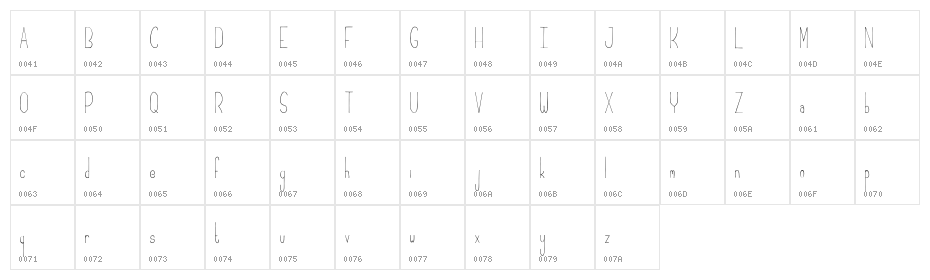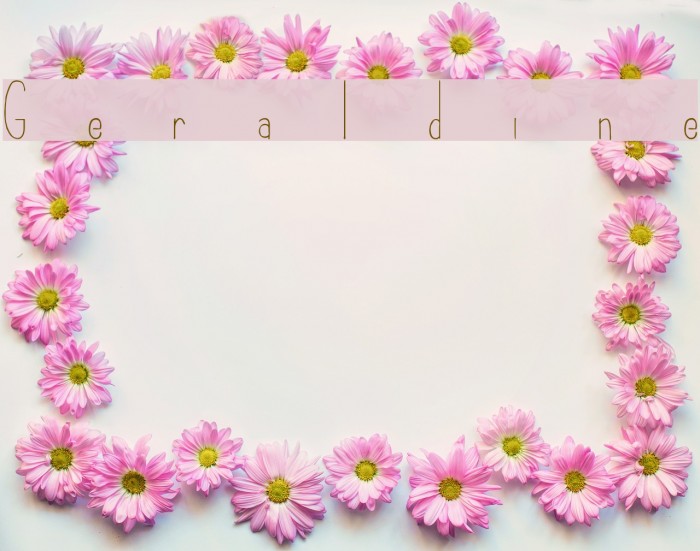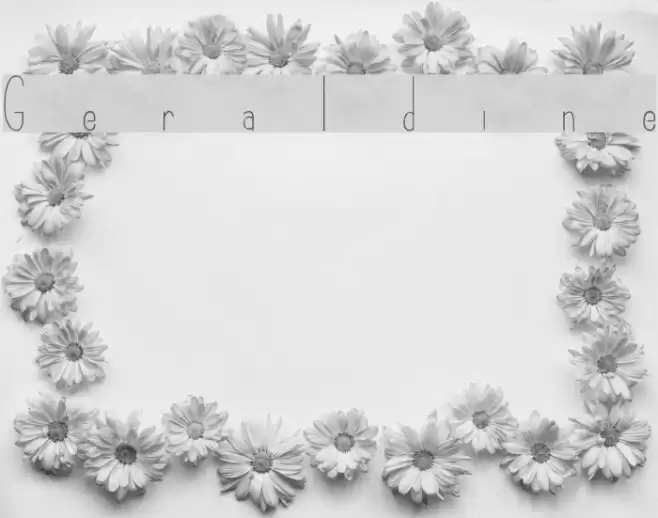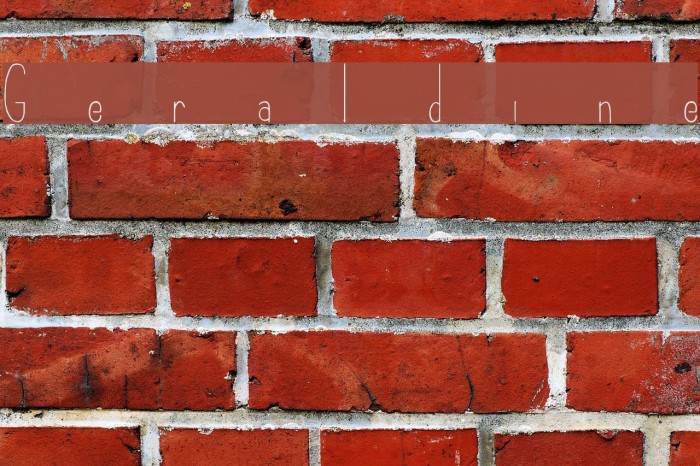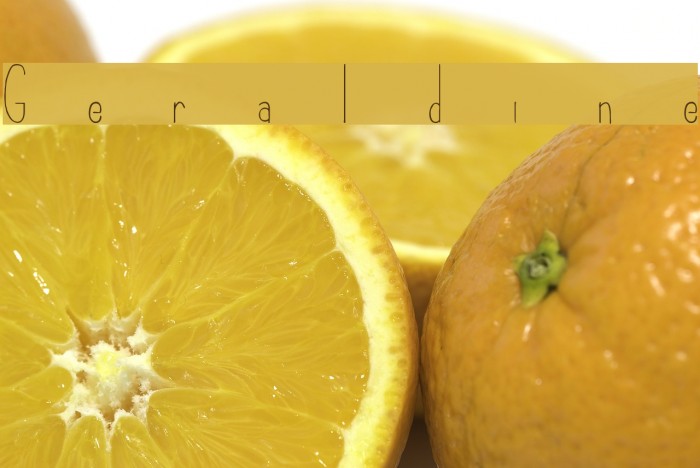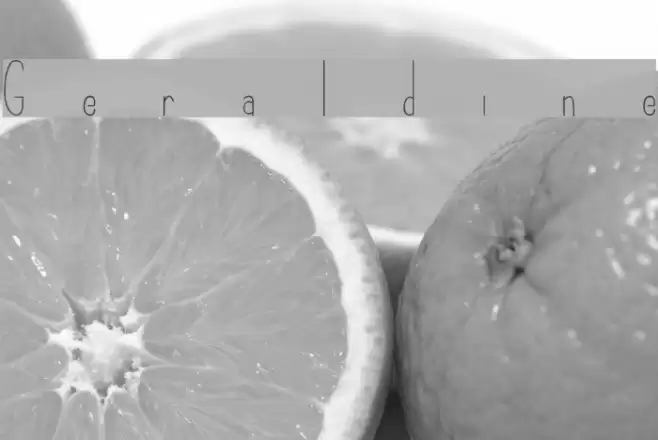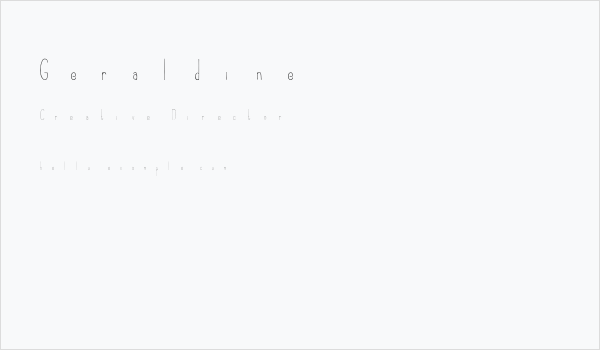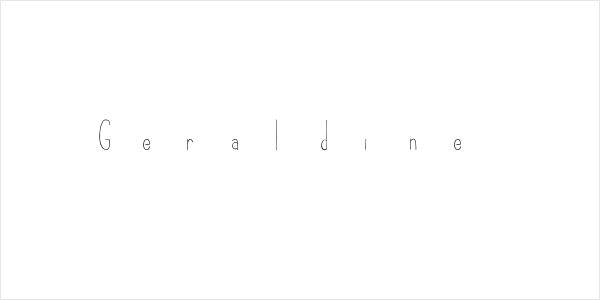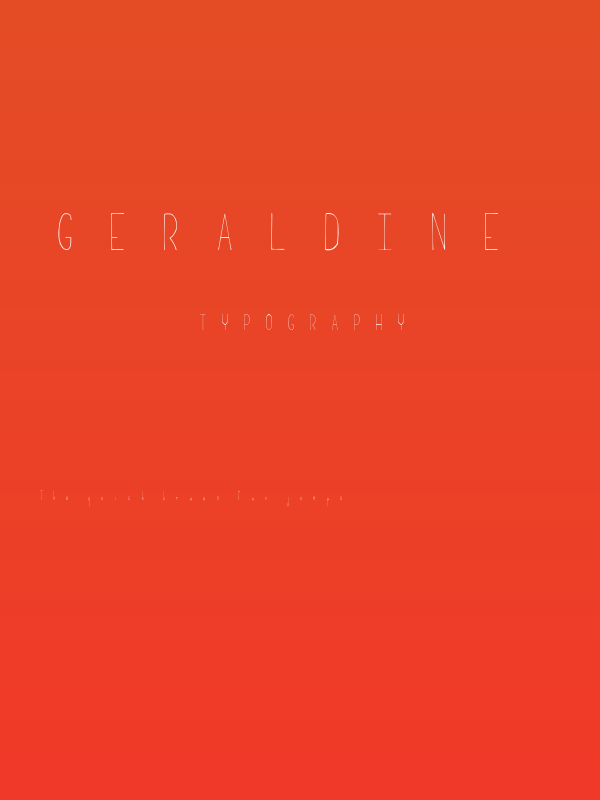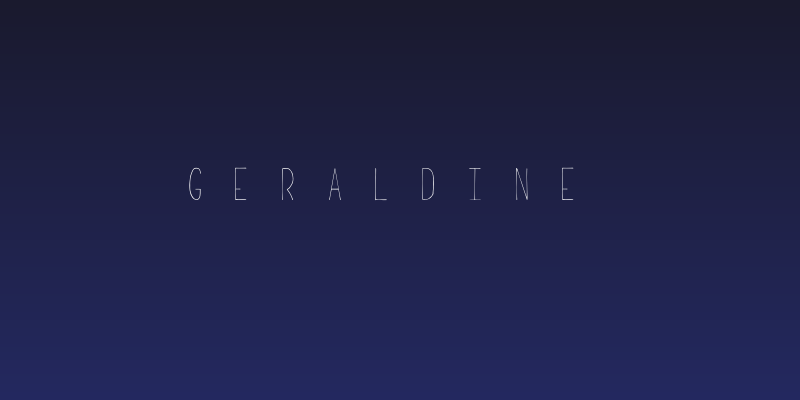
Geraldine Font
Geraldine Description
This font features a minimalist and elegant design with thin, elongated strokes that give it a delicate and airy appearance. The characters are crafted with a consistent line weight, creating a harmonious and balanced look. The uppercase letters are tall and narrow, while the lowercase letters maintain a similar slender form, enhancing the font's cohesive style. The numerals and special characters follow the same design principles, ensuring uniformity across all glyphs. This font's simplicity and sophistication make it suitable for modern and stylish applications.
| Use Case | Logos, Invitations, Editorial Design |
| Proposed Projects | Ideal for fashion branding, wedding invitations, minimalist logos, and editorial design. |